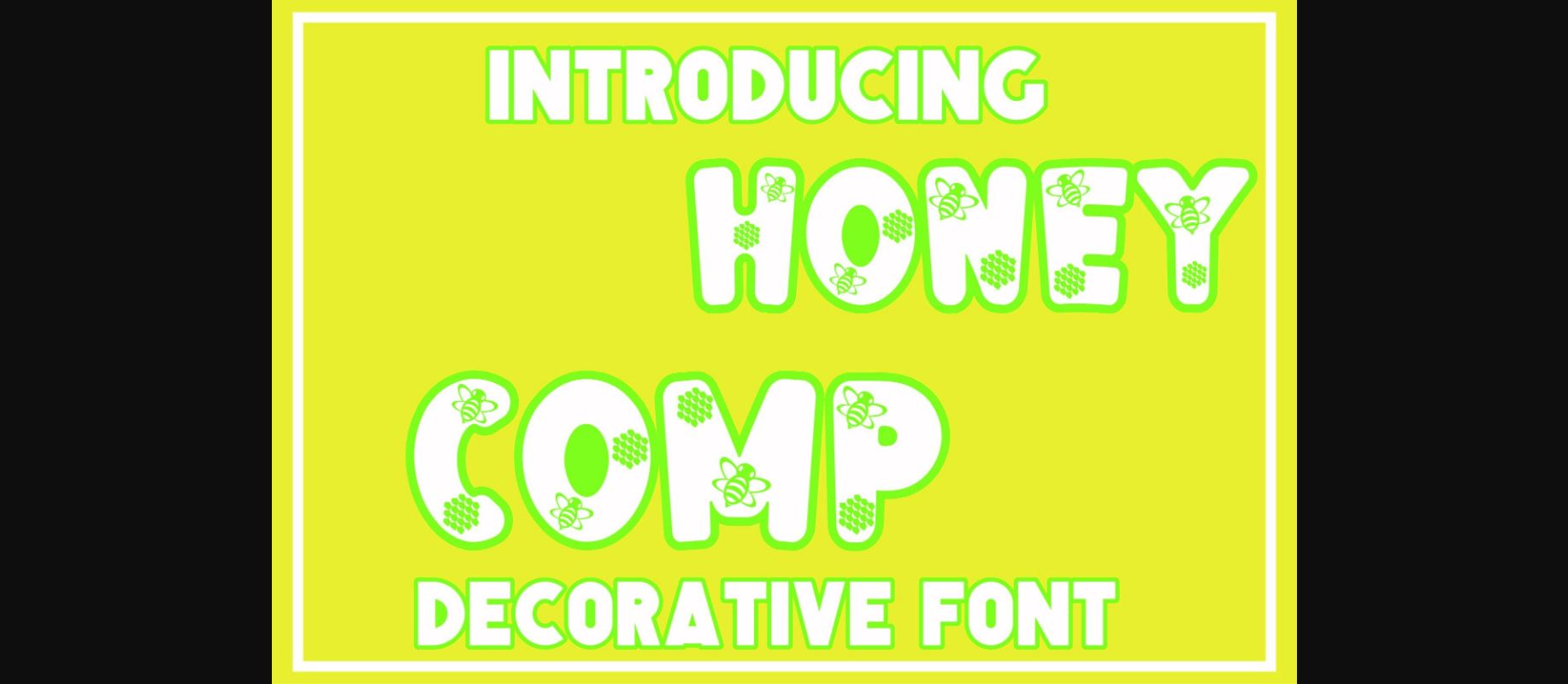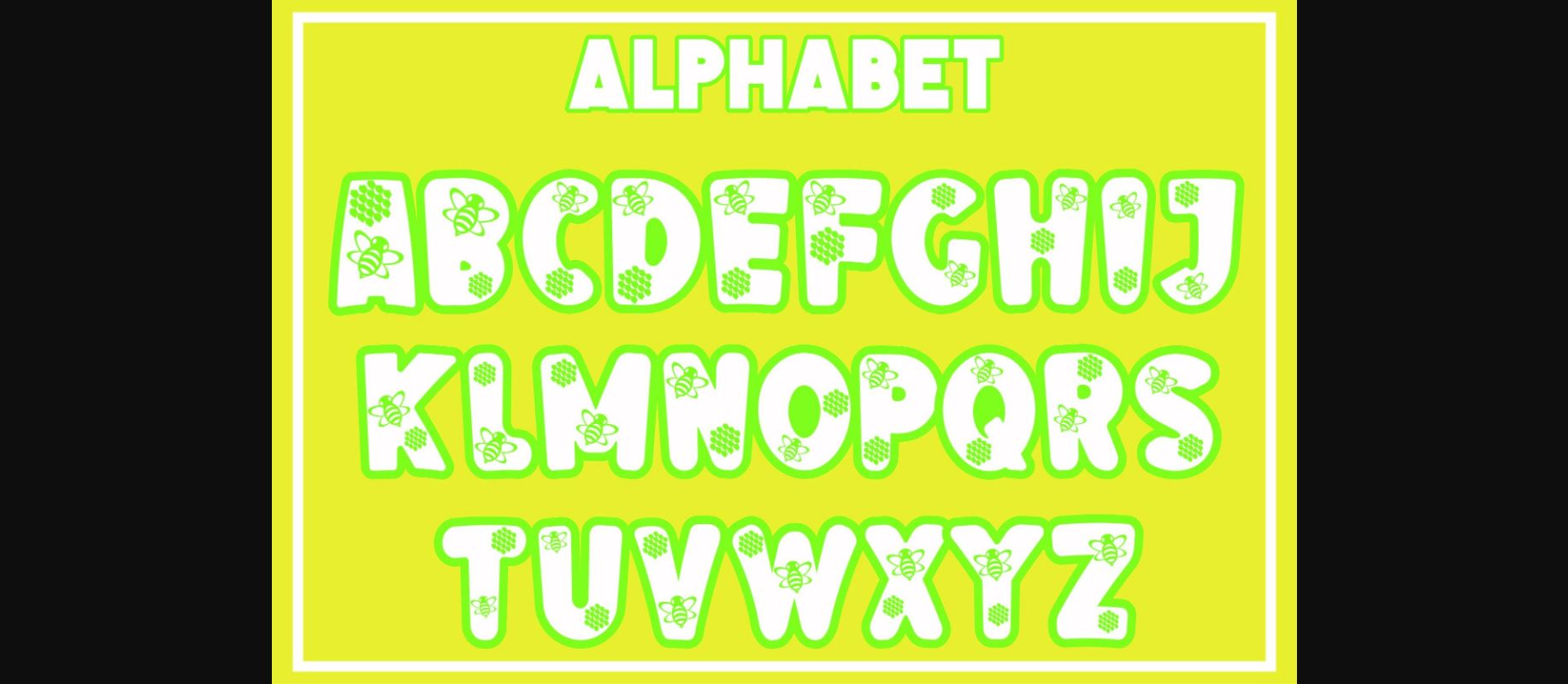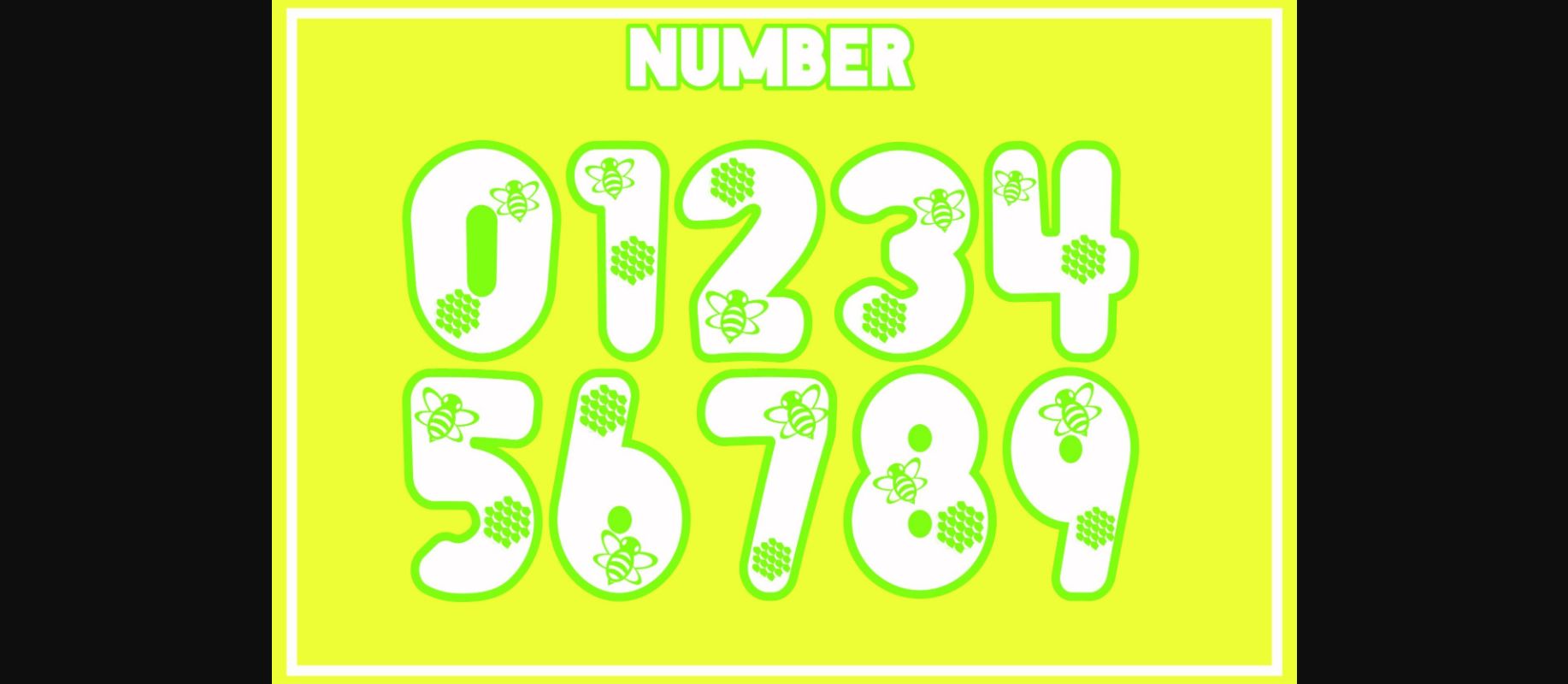
Honey Comp Font
About Honey Comp Font
Honey Comp is an adorable and playful decorative font perfect for creative and lovely ideas. Fall in love with its sweet vibe and add it to your favorite projects!